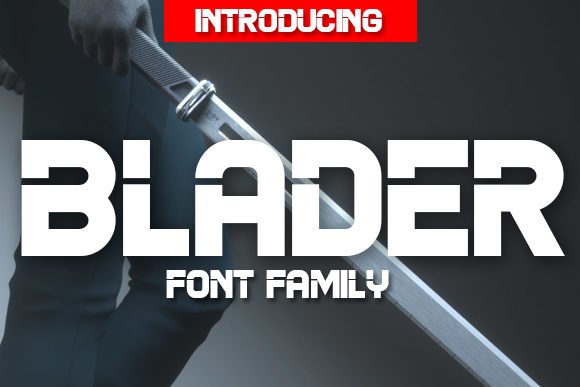
Discover the Edge of Creativity with Blader Font
Enter Blader Font, a display font that’s perfect for making a statement. Whether you’re crafting logos, social media posts, or greeting cards, Blader Font adds a unique touch that sets your work apart. With its bold lines and edgy feel, this font is a valuable tool for designers looking to add some excitement to their projects.
Blader Font Key Features
- Font Family: Blader Font is a sans-serif font family designed for digital use.
- Unique Characteristics: Blader Font features a clean and modern design, with subtle rounded edges and a high x-height, making it highly legible and readable in digital environments.
Blader Font Review
As a designer, I was excited to dive into the Blader Font and see what it had to offer. After a thorough review, I have to say that it’s a mixed bag.
- Unique Design: The Blader Font has a truly unique design that sets it apart from other fonts. The clean lines and modern aesthetic make it perfect for futuristic or sci-fi themed projects.
- High Legibility: The font is highly legible, even at smaller font sizes, making it ideal for body text and large blocks of content.
- No Italic or Bold Variants: The font is only available in regular weight, which can make it difficult to use for headings or emphasis.
- Not Suitable for Small Text: While the font is highly legible, it’s not ideal for small text sizes, as the letters can become difficult to read.
Overall, I’d say that the Blader Font is a solid choice for designers who are looking for a unique and modern font for their projects. However, it’s not without its limitations, and designers should carefully consider whether it meets their needs before committing to it.
Getting the Most Out of Blader Font
To get the most out of Blader Font, use it for:
- Creating modern and sleek designs.
- Adding a touch of elegance to your text elements.
- Highlighting important information or creating a sense of hierarchy.
Blader Font is commonly used for:
- Logo design and branding.
- Infographics and data visualization.
- Business cards and resumes.
Alternatives to Blader Font for Designers
Montserrat is similar to Blader Font in its modern feel, but it has a more geometric and structured design. It is more versatile and can be used in a wide range of applications.